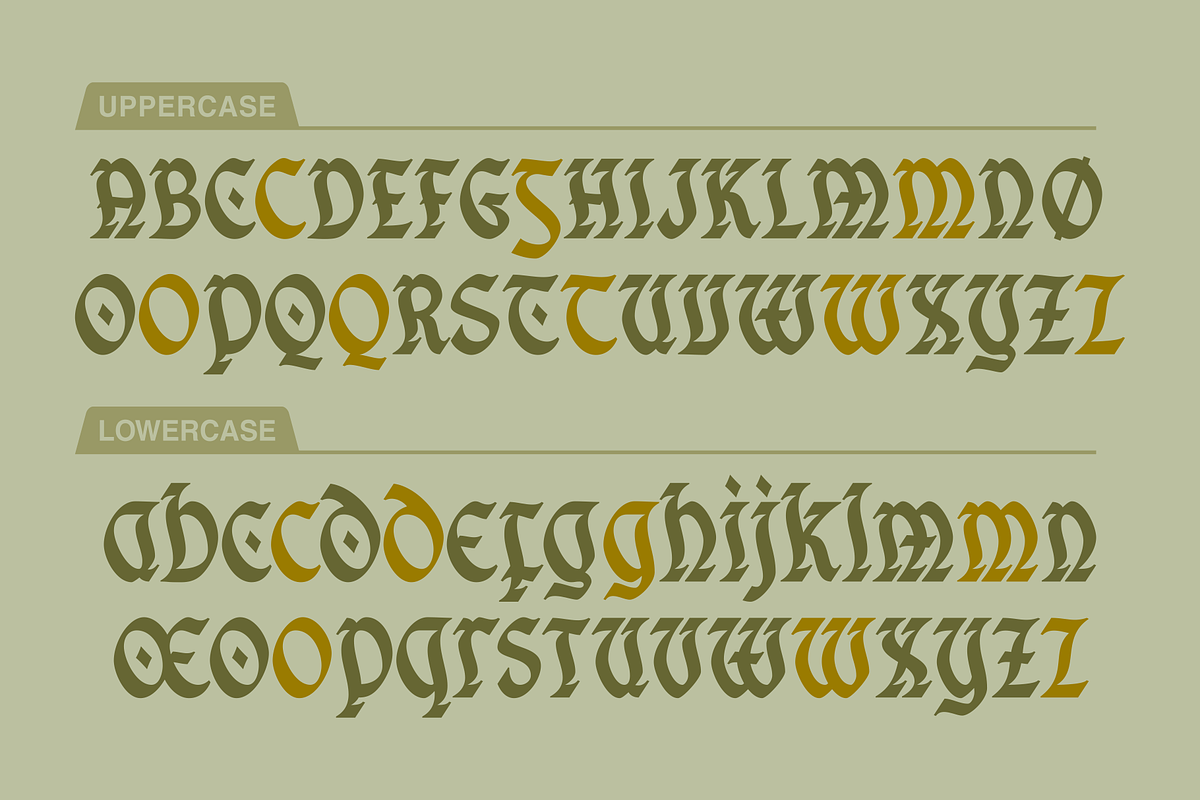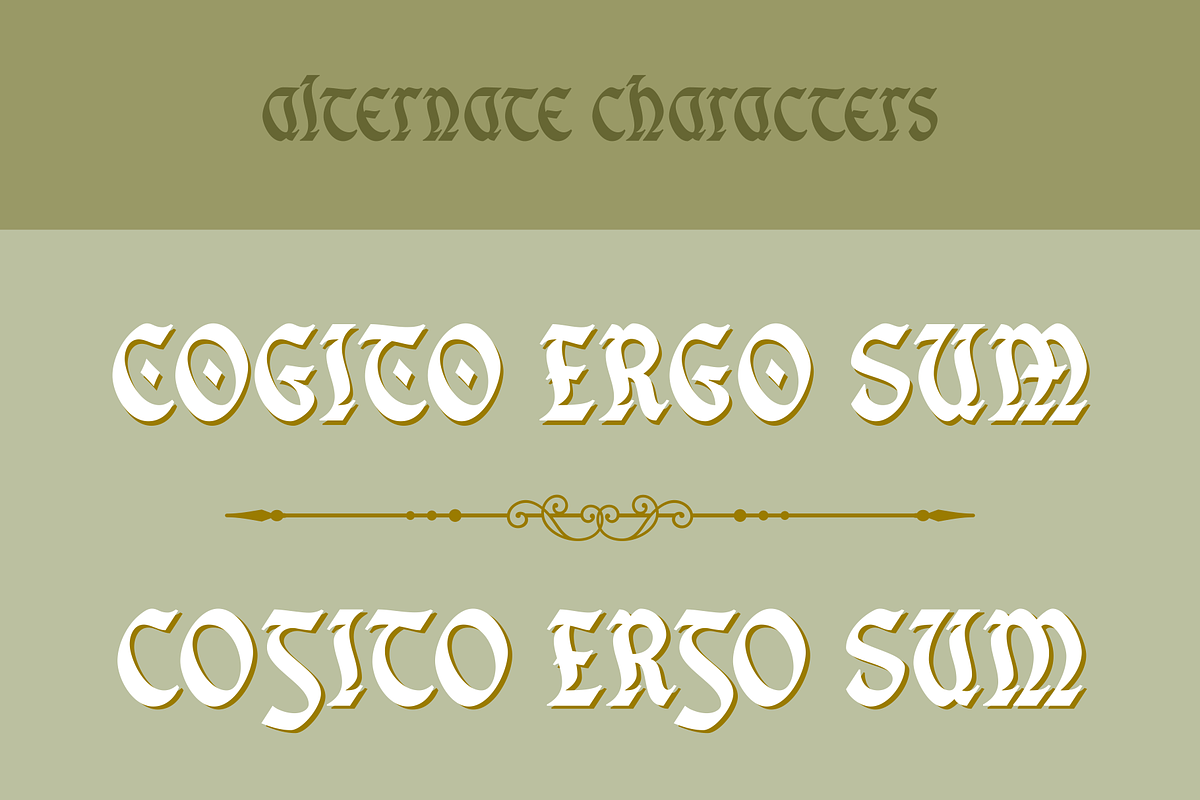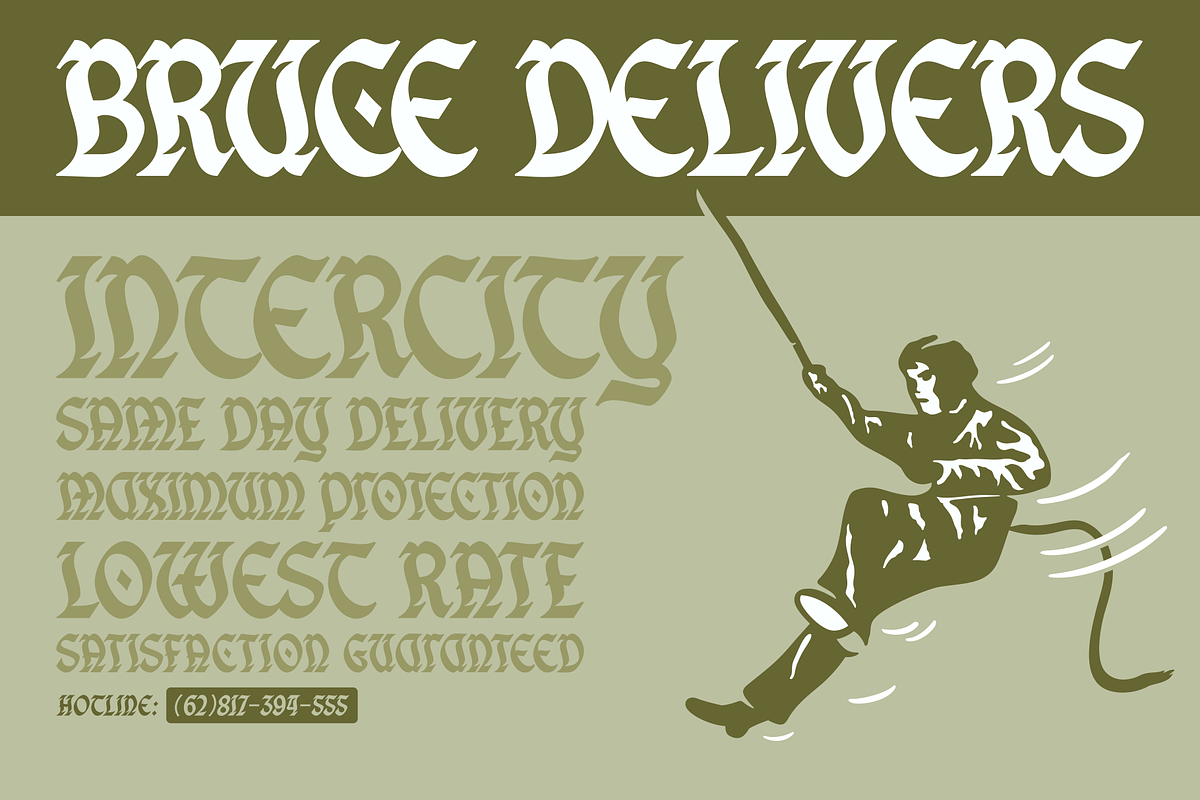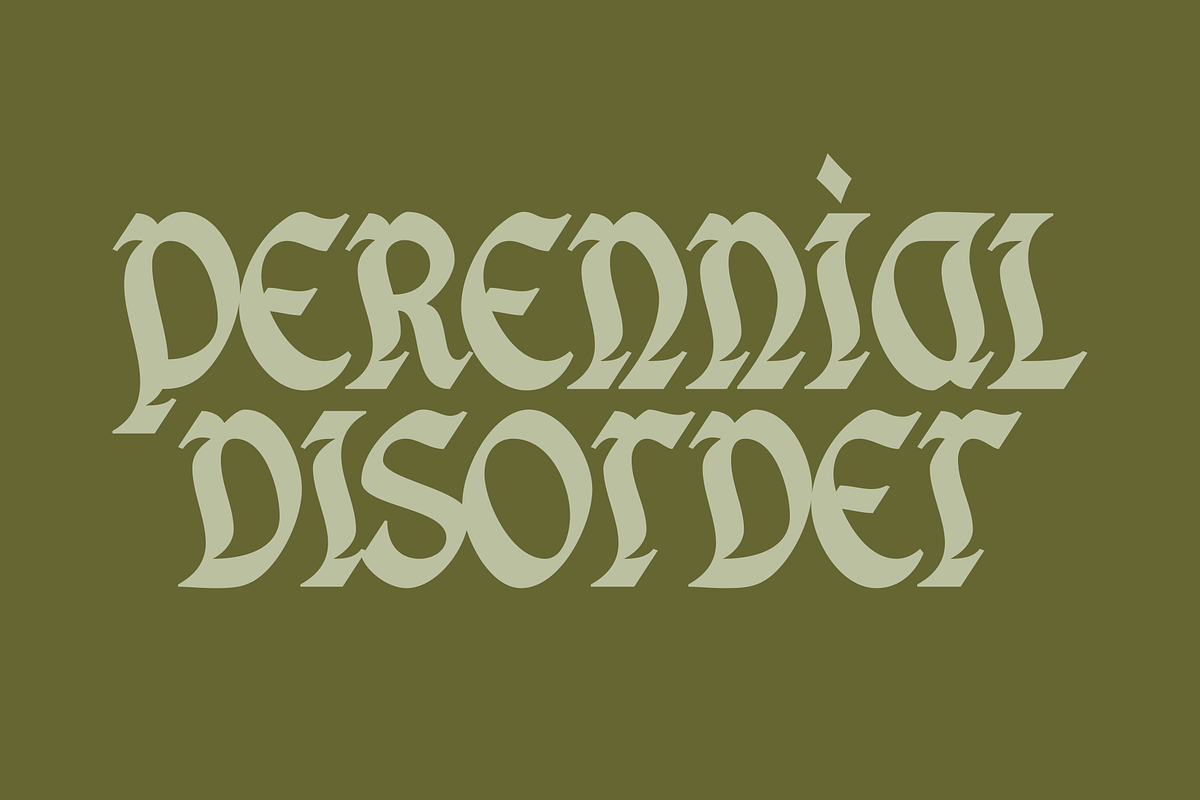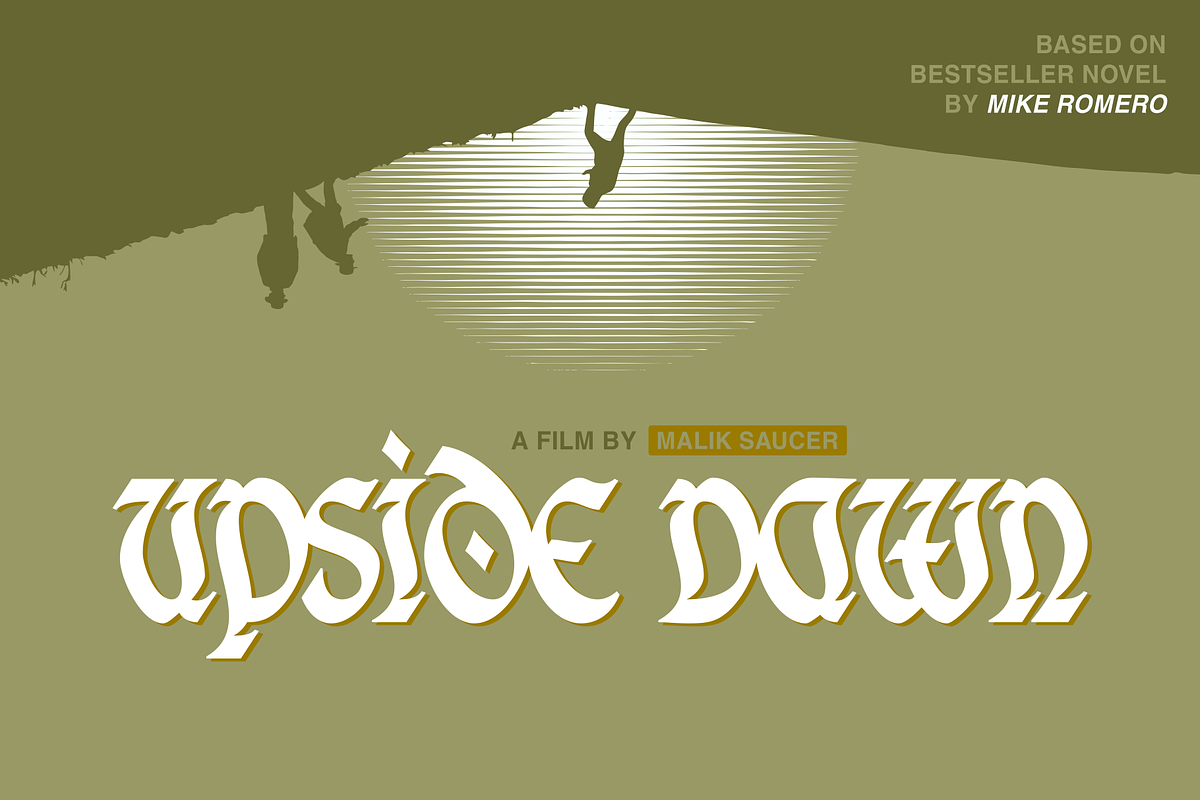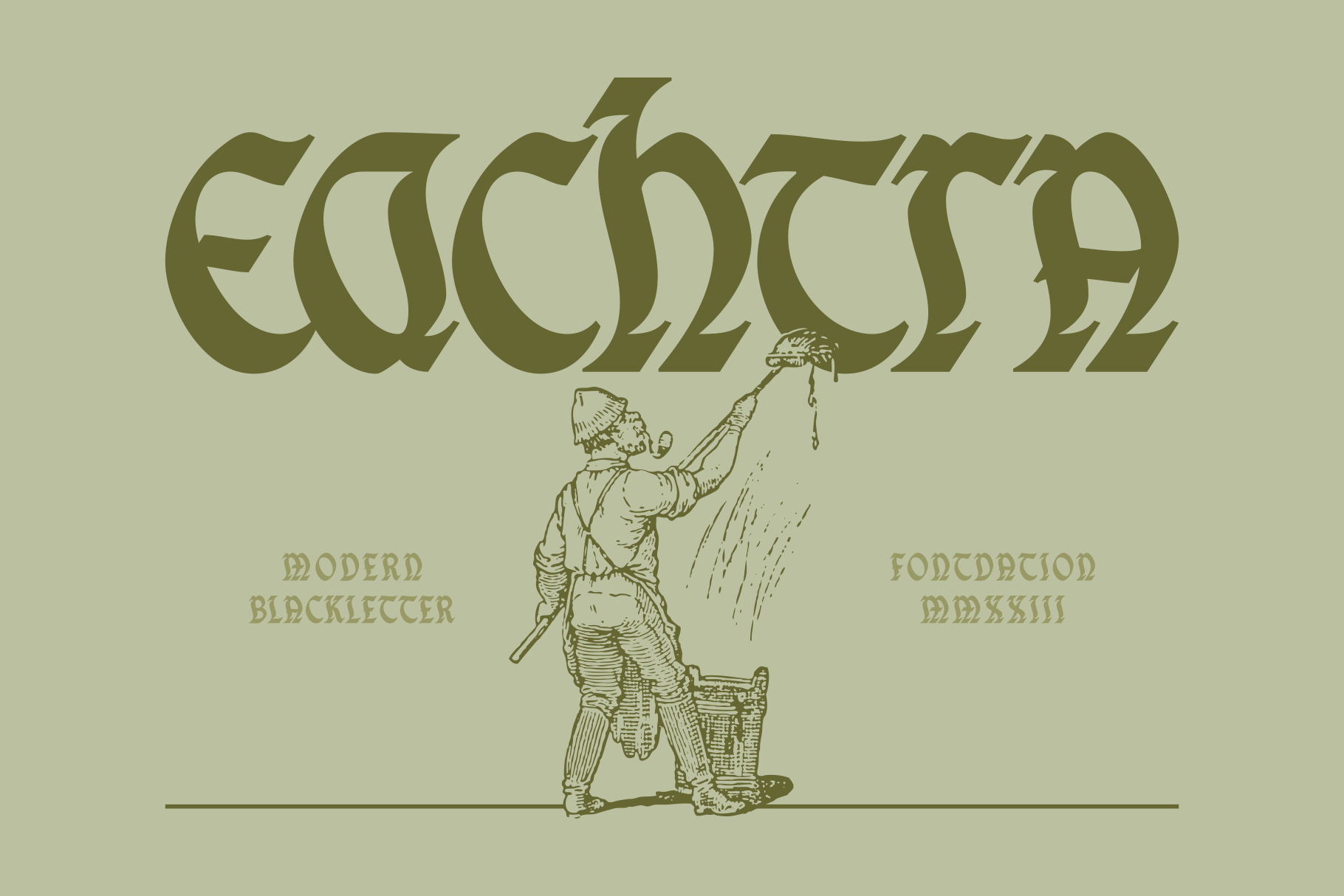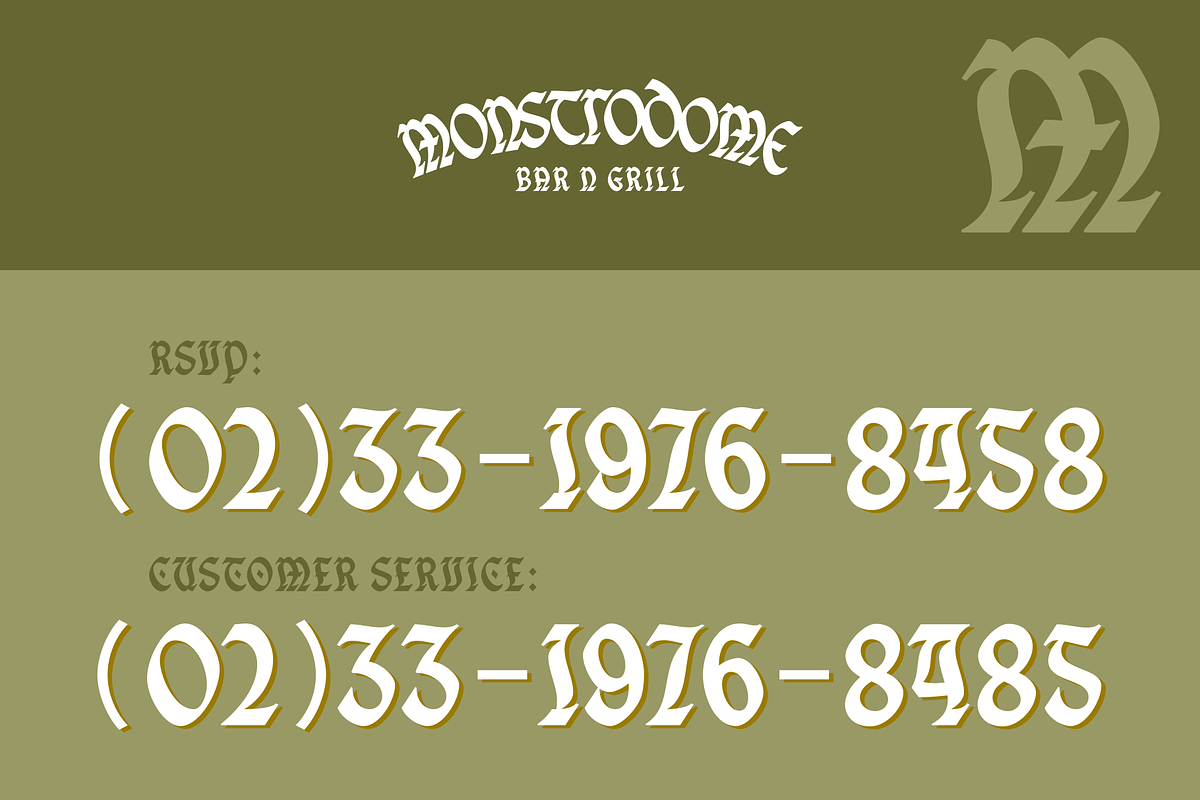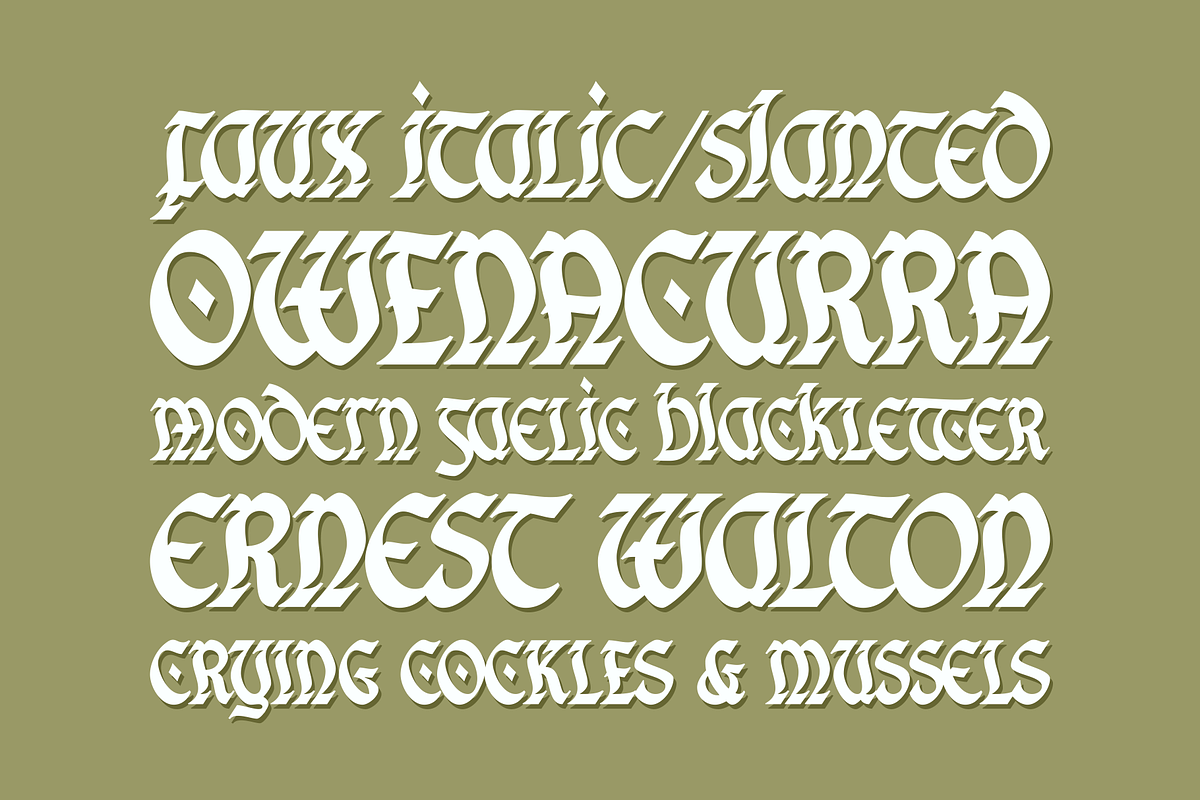
Eachtra | Modern Blackletter Font
Introducing Eachtra: a blackletter font with a mixed influence from Celtic/Gaelic letters. You can combine the upper and lower case to get a surprising letter combinations. Suits best for design that need a bold, classic, and striking feels such as headline, poster design, logotype, apparel design etc.